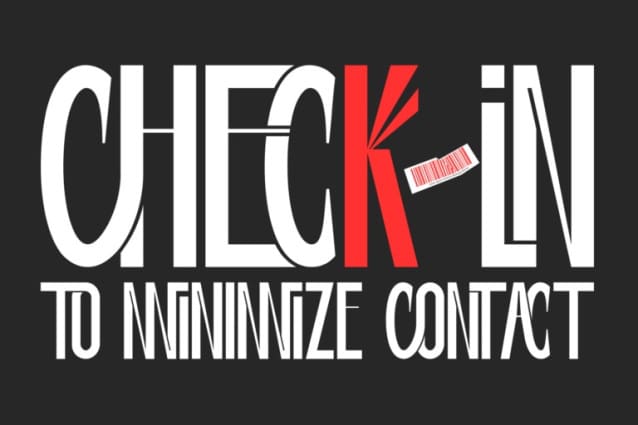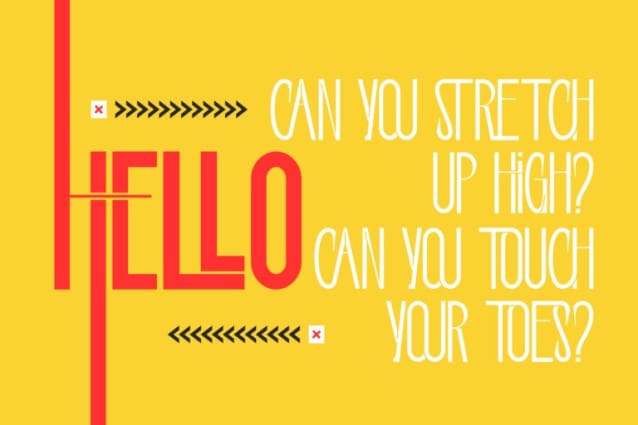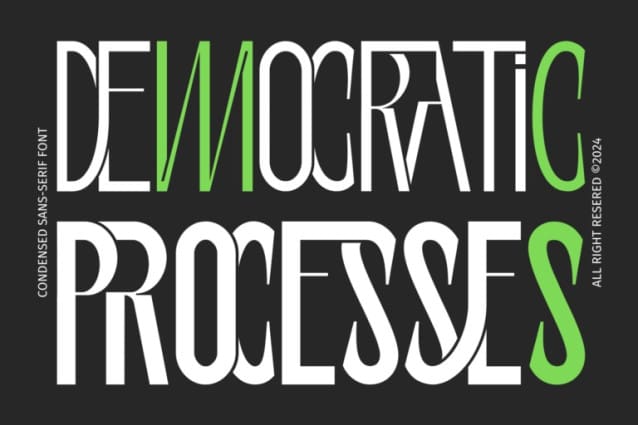
Democratic Processes Font
DEMOCRATIC PROCESSES Font – a dynamic mix and match typeface combining condensed and expanded sans-serif styles. A typeface inspired by the visuals of iconic sci-fi movies and TV shows. Every letterform is meticulously crafted to evoke a world where technology reigns supreme, and humanity grapples with its own creations. Whether you’re crafting eye-catching posters, impactful branding, striking headlines, or memorable logos, this font offers the perfect balance of contrast and cohesion. Elevate your design game with a font that’s both playful and powerful.
DEMOCRATIC PROCESSES was built with OpenType features and includes 100 ligatures, alternate, numbers, punctuation, and it also supports other languages.
AC AD AL AN AR AS AT AU AV BE CA CE CH CO CT DE DI EA EC ED EE EL EM EN EP ER ES ET FE FO FR GE HA HE HI HO IE IC IL IN IO IR IS IT JU KE LA LE LI LL LO LY MA ME MI NC ND NE NG NO NT NS OC OF OM ON OO OP OR OT OU OW PA PR RA RD RE RI RO RS RT SE SH SI SO SS ST TA TE TH TI TO TR TT UM UN UR VE WI WO